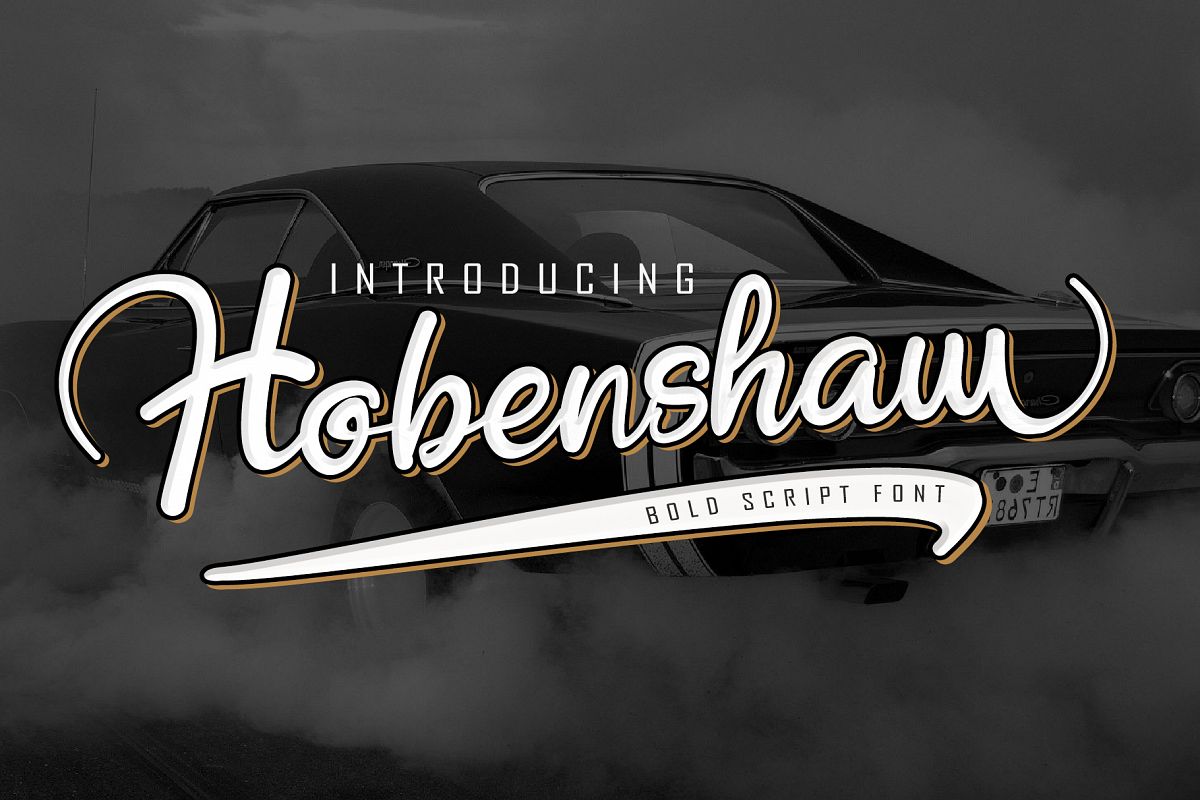
Introducing a new hand drawn
fontcarefully crafted with a personal charm. It is a hot font, perfect for a
design that stands out even if it’s a logo, or simply a stylish text over an
background image.